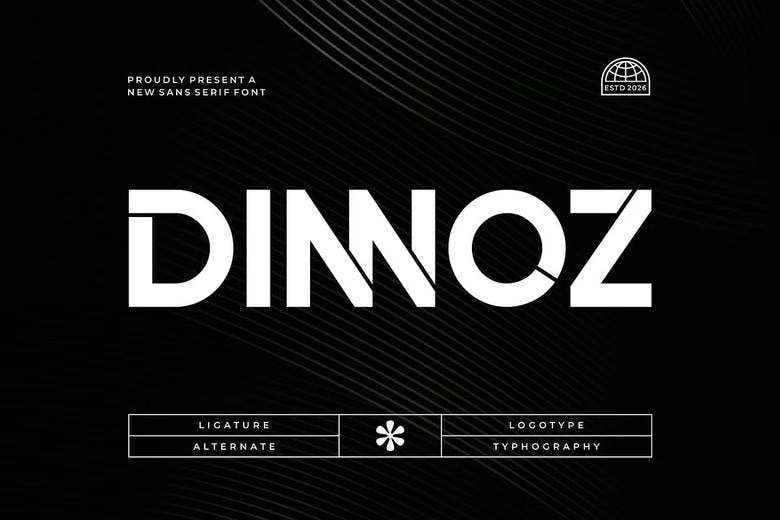
Dinnoz Font
Dinnoz sans serif is a modern futuristic font type that is used in all branding and logo designs. It is a beautiful modern and futuristic sans serif font. The font is helpful in designing invitation cards, trendy logos, movie titles, movie names, business cards, book titles, brand names, or other designs.
The dinnoz sans serif is a smooth font that is not serifed and which oozes sophistication and moment. This font is an ideal match with any project because it has elegant ligatures.
Dinnoz Sans Serif Font